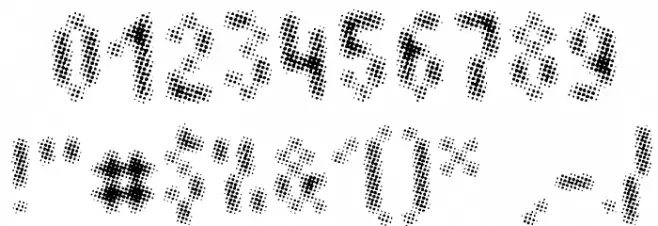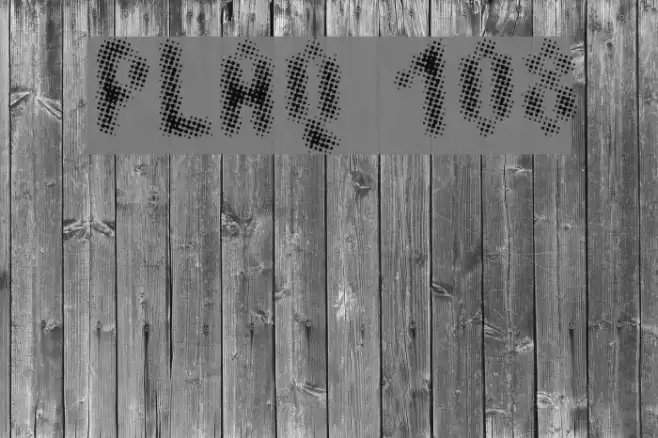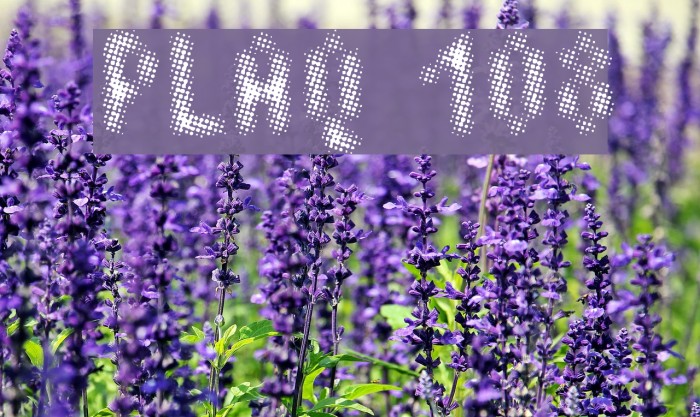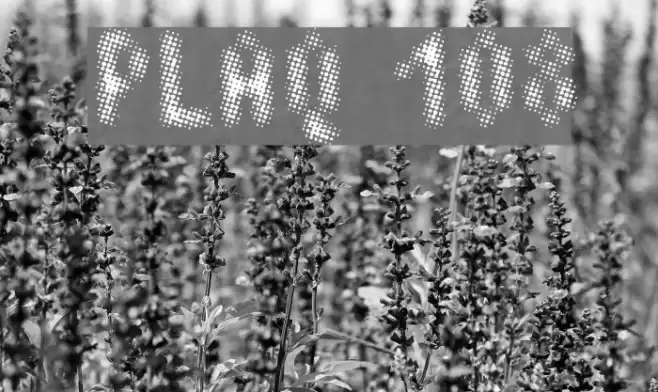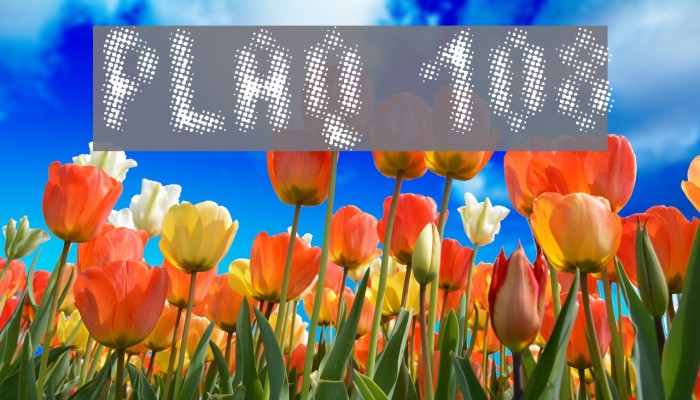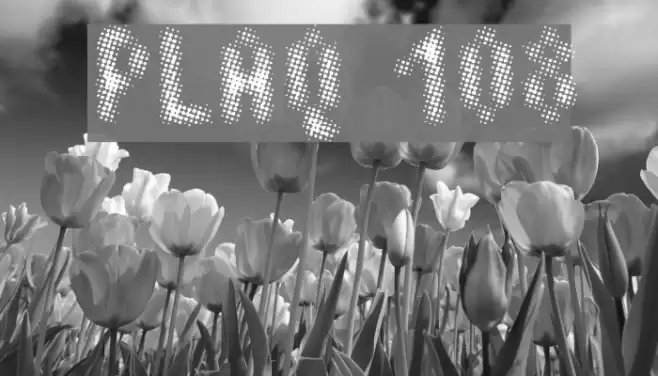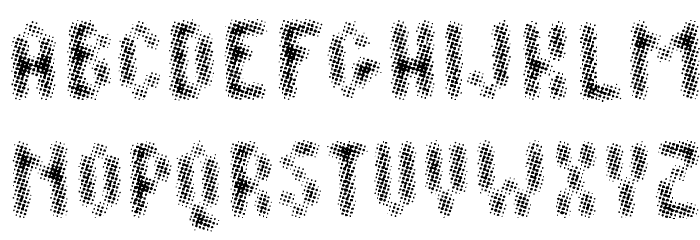
Plaq 108 Font
Plaq 108 Description
This font features a distinctive halftone pattern, creating a textured and dynamic appearance. Each character is composed of small dots, giving it a unique, retro aesthetic reminiscent of vintage comic book printing techniques. The uppercase and lowercase letters maintain a consistent style, with rounded edges and a playful, informal vibe. The numbers and special characters follow the same design principles, ensuring uniformity across all glyphs. This font's dotted texture adds depth and visual interest, making it stand out in any design project.
| Overall Style | Vintage |
| Proposed Projects | Ideal for retro-themed posters, comic book designs, vintage advertisements, and creative branding projects. |